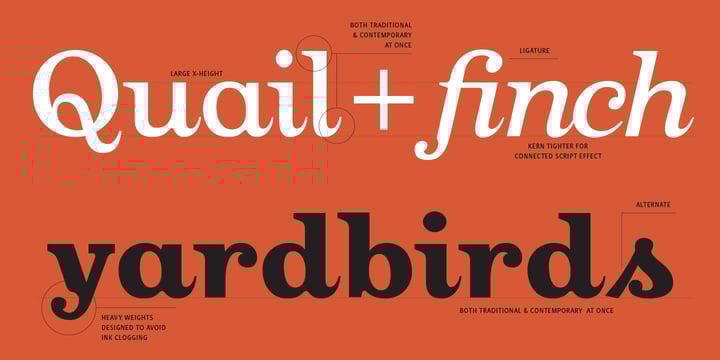
Oxtail
Oxtail by MAC Rhino Fonts
Oxtail Font Family was designed by Stefan Hattenbach and published by MAC Rhino Fonts. Oxtail contains 6 styles and family package options. More about this family
About Oxtail Font Family
This typeface has its roots in the Egyptienne-family which became popular in the beginning of the 19th Century. To make the family more unique and personal, ”twists” have been crafted throughout the design. All together a family of 6 weights, including: Medium, Medium Italic, Bold, Bold Italic, Black and Black Italic.
Designers: Stefan Hattenbach
Publisher: MAC Rhino Fonts
Foundry: MAC Rhino Fonts
Design Owner: MAC Rhino Fonts